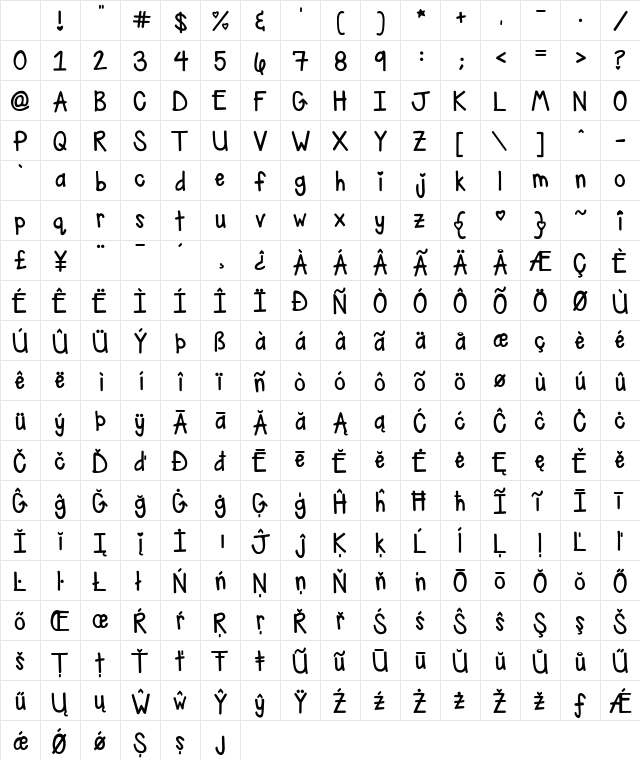
Complete KG Ray of Sunshine Regular glyph index. Displaying only characters natively supported by KG Ray of Sunshine Regular font.
KG Ray of Sunshine is a composed and adaptable typeface that performs quietly and consistently across a wide range of design contexts.